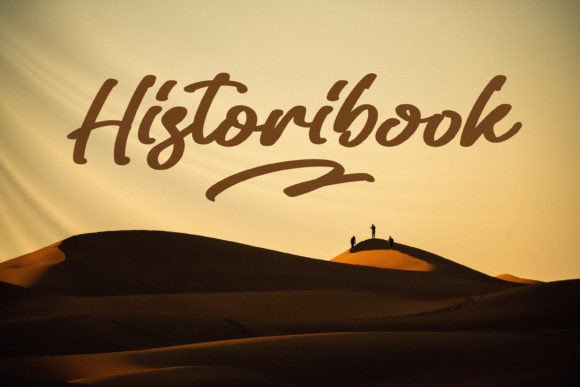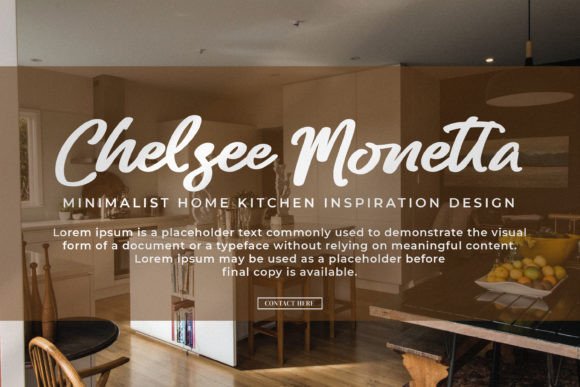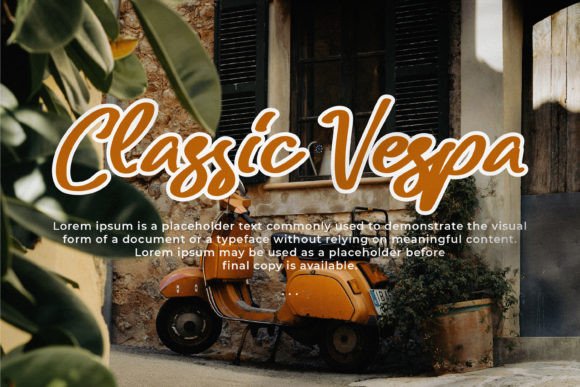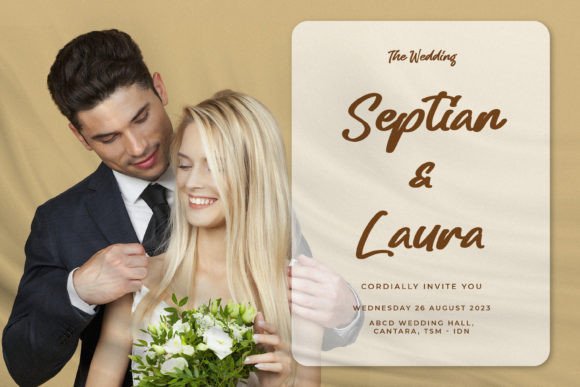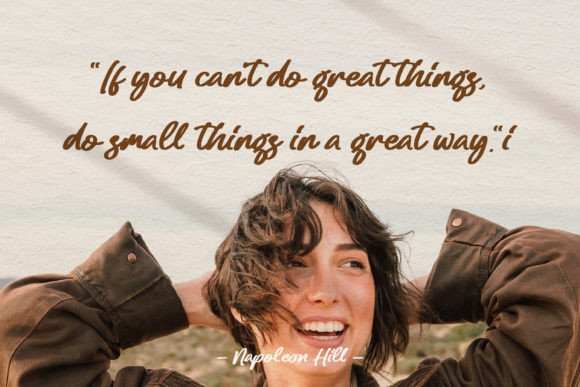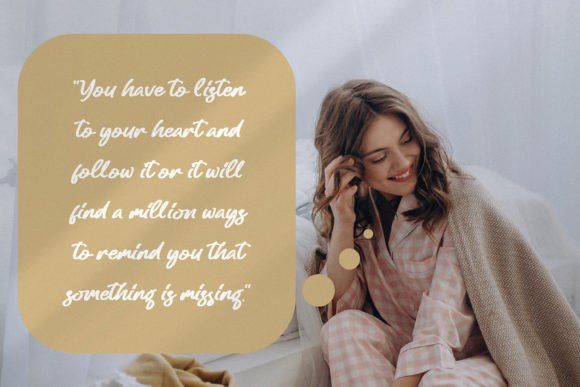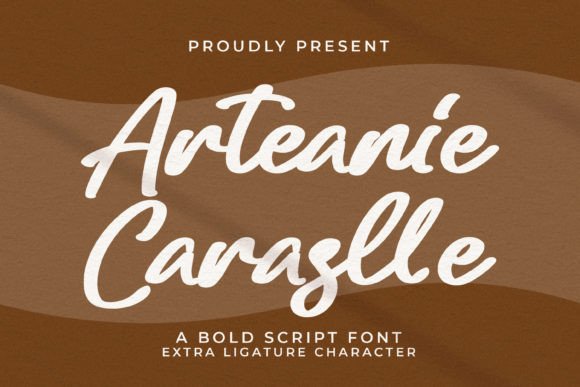
Introducing Arteanie Caraslle Font: Elevate Your Designs with Elegance
Are you a designer or crafter looking for a font that exudes sophistication and style? Look no further than Arteanie Caraslle, a bold and elegant script font that’s perfect for a wide range of creative projects. In this article, we’ll explore the features and uses of Arteanie Caraslle, and show you how to make the most of this versatile font.
What is Arteanie Caraslle Font?
Arteanie Caraslle is a beautifully crafted script font that’s designed to add a touch of elegance to any design project. Its bold and flowing strokes make it perfect for creating eye-catching logos, branding materials, and marketing collateral. Whether you’re working on a high-end fashion brand or a lifestyle product, Arteanie Caraslle is sure to make a statement.
Key Features of Arteanie Caraslle Font
- Bold and Elegant: Arteanie Caraslle features bold and flowing strokes that add a touch of sophistication to any design.
- Script Font: This beautiful script font is perfect for creating eye-catching headlines, titles, and quotes.
- Versatile: Arteanie Caraslle can be used for a wide range of design projects, from logos and branding to homewares, product packaging, and more.
- Easy to Read: Despite its bold and elegant style, Arteanie Caraslle is easy to read, making it perfect for body text and captions.
Uses of Arteanie Caraslle Font
Arteanie Caraslle is a versatile font that can be used for a wide range of design projects, including:
- Logos and Branding: Create a bold and elegant logo that makes a statement with Arteanie Caraslle.
- Homewares Designs: Add a touch of sophistication to your homewares designs, from ceramics to textiles.
- Product Packaging: Make your product packaging stand out with Arteanie Caraslle’s bold and elegant script.
- Mugs and Drinkware: Create eye-catching mugs, water bottles, and other drinkware with Arteanie Caraslle.
- Quotes and Posters: Use Arteanie Caraslle to create inspiring quotes and posters that make a statement.
- Shopping Bags and T-Shirts: Add a touch of elegance to your shopping bags and t-shirts with Arteanie Caraslle.
- Covers and Books: Create stunning book covers and designs with Arteanie Caraslle.
- Business Cards and Invitation Cards: Make a statement with Arteanie Caraslle on your business cards, invitation cards, and greeting cards.
- Labels and Photography: Use Arteanie Caraslle to add a touch of elegance to your labels, photography, and watermarks.
- Special Events: Create stunning designs for special events, such as weddings, parties, and conferences, with Arteanie Caraslle.
Tips for Using Arteanie Caraslle Font
Here are some tips for getting the most out of Arteanie Caraslle:
- Use it as a Headline Font: Arteanie Caraslle is perfect for headlines and titles, so use it to make a statement.
- Pair it with a Sans-Serif Font: Pair Arteanie Caraslle with a sans-serif font, such as Arial or Helvetica, to create a striking contrast.
- Experiment with Colors: Arteanie Caraslle looks great in a range of colors, so don’t be afraid to experiment and find the perfect hue for your design.
- Use it for Quotes and Captions: Arteanie Caraslle is perfect for quotes and captions, so use it to add a touch of elegance to your designs.
Arteanie Caraslle is a bold and elegant script font that’s perfect for designers and crafters looking to add a touch of sophistication to their designs. With its versatile style and wide range of uses, Arteanie Caraslle is sure to become a staple in your font library. Whether you’re working on a logo, branding project, or marketing collateral, Arteanie Caraslle is the perfect choice.